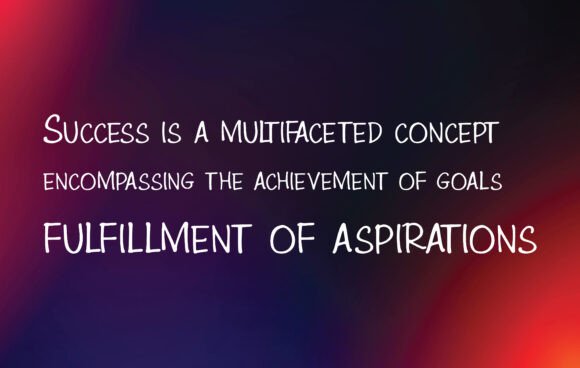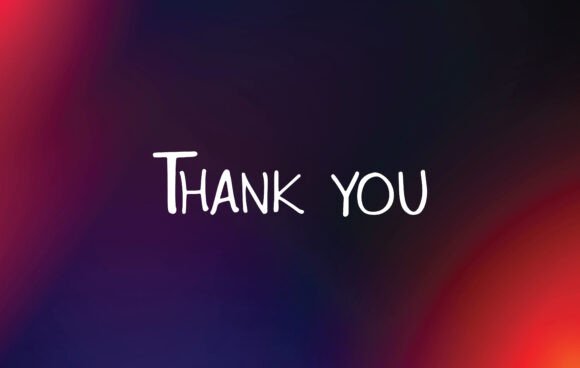
Introducing Harvey Font: Elevate Your Creative Projects with Elegance
Are you on the lookout for a font that can add a touch of elegance and sophistication to your creative projects? Look no further than the Harvey Font. This lovely and beautiful handwritten font has the potential to take your ideas to the highest level, making it the perfect choice for designers, crafters, and anyone looking to create eye-catching logos, branding, and quotes.
The Beauty of Harvey Font
The Harvey Font is a stunning example of handwritten typography. Its unique and elegant style is sure to capture the attention of your audience and leave a lasting impression. The font’s beautiful curves and lines give it a personal and approachable feel, making it perfect for a wide range of creative projects.
Why Choose Harvey Font?
So, why should you choose the Harvey Font for your next project? Here are just a few reasons:
- Elegance and Sophistication: The Harvey Font exudes elegance and sophistication, making it perfect for high-end branding and luxury projects.
- Versatility: This font is incredibly versatile and can be used for a wide range of creative projects, from logos and branding to quotes and social media graphics.
- Easy to Read: Despite its elegant style, the Harvey Font is easy to read, making it perfect for body text and longer quotes.
- Unique and Memorable: The Harvey Font is a unique and memorable font that will help your project stand out from the crowd.
The Harvey Font is a dream come true for designers and crafters. Its elegant style and versatility make it perfect for a wide range of creative projects, including:
- Logo Design: Create eye-catching logos that will help your brand stand out from the crowd.
- Branding: Use the Harvey Font to create a cohesive brand identity that exudes elegance and sophistication.
- Quotes and Social Media Graphics: Add a touch of elegance to your quotes and social media graphics with the Harvey Font.
- Stationery and Packaging: Use the Harvey Font to create beautiful stationery and packaging that will elevate your brand.
Tips for Using Harvey Font
Here are a few tips for getting the most out of the Harvey Font:
- Use it Sparingly: While the Harvey Font is beautiful, it can be overwhelming if used too much. Use it sparingly to create a focal point in your design.
- Experiment with Colors: The Harvey Font looks stunning in a variety of colors. Experiment with different colors to find the one that works best for your project.
- Pair it with Other Fonts: The Harvey Font pairs well with a variety of other fonts. Experiment with different pairings to find the one that works best for your project.
In conclusion, the Harvey Font is a beautiful and elegant handwritten font that has the potential to take your creative projects to the highest level. Its unique style, versatility, and ease of use make it perfect for designers, crafters, and anyone looking to create eye-catching logos, branding, and quotes. Whether you’re looking to add a touch of elegance to your branding or create a stunning logo, the Harvey Font is the perfect choice.